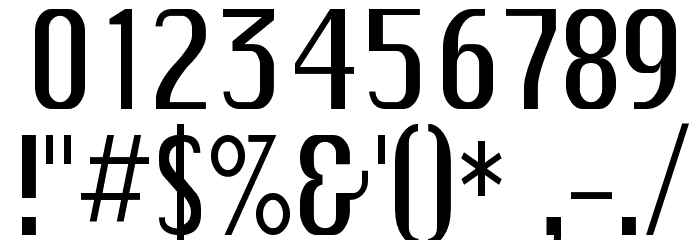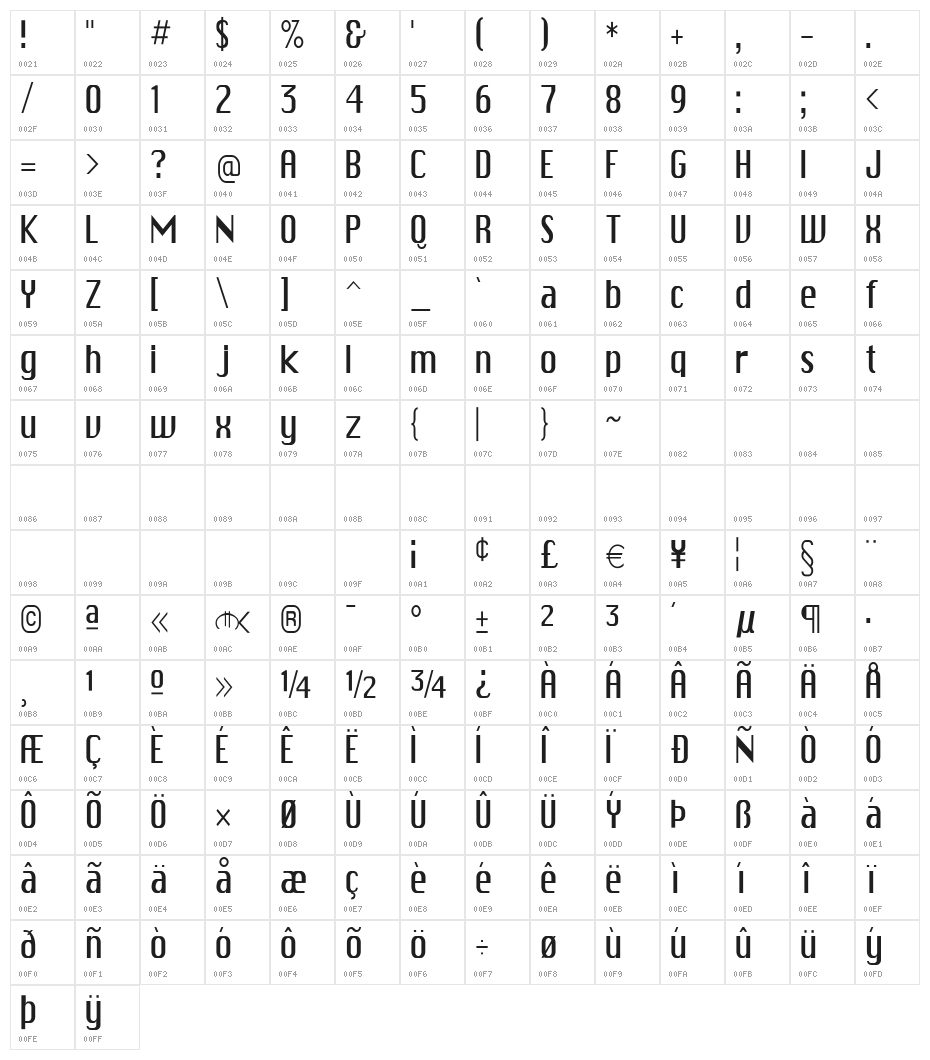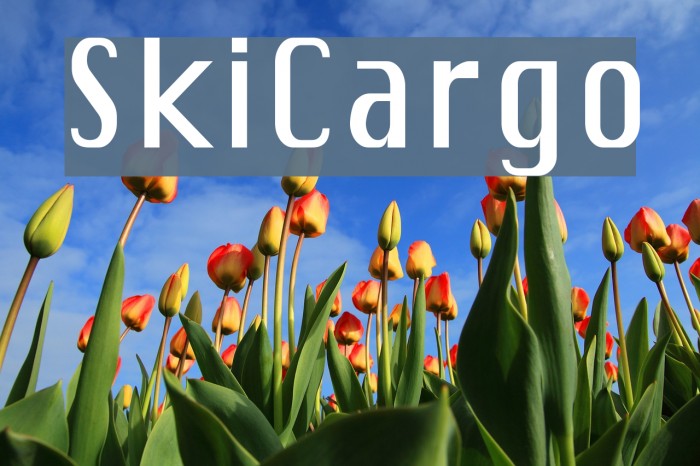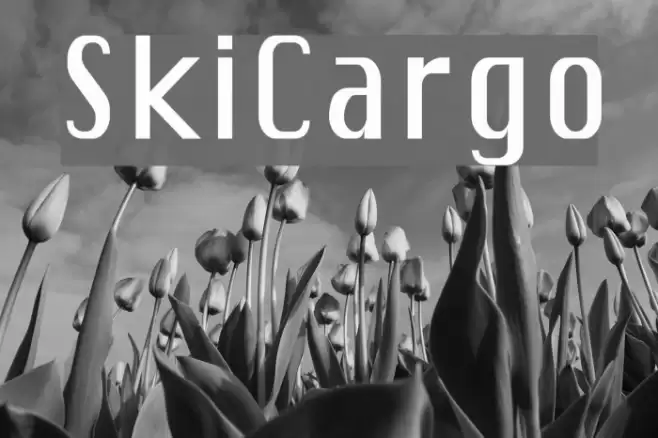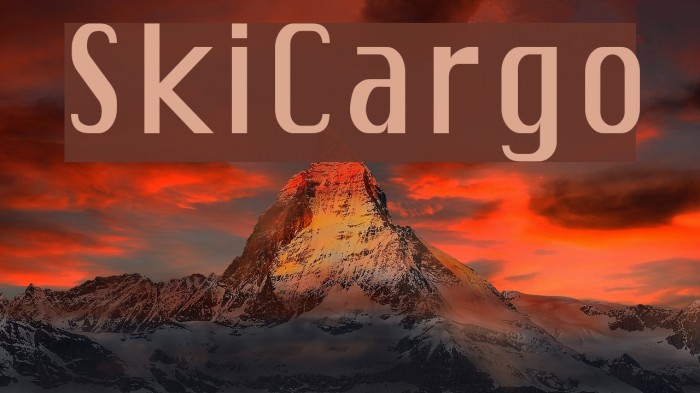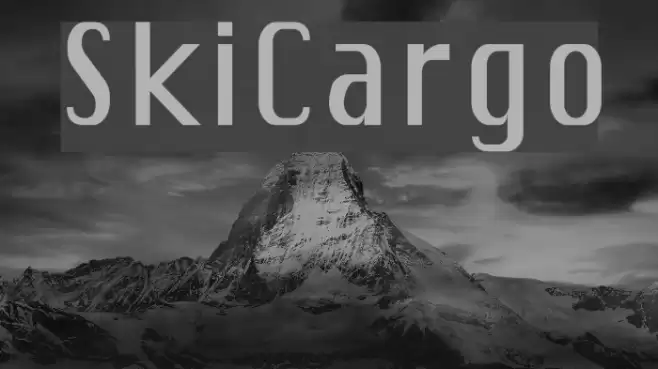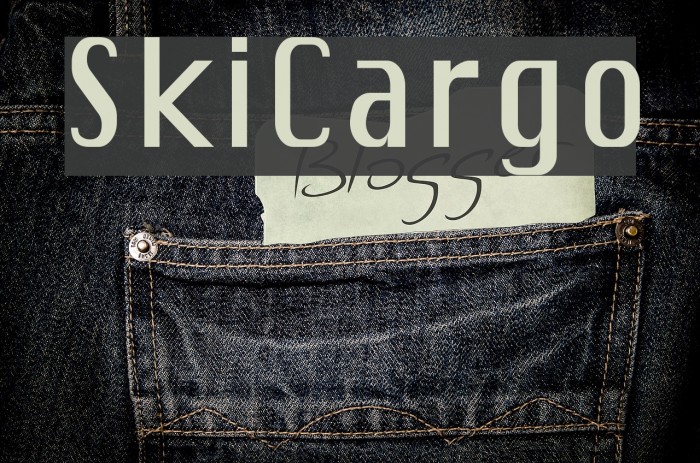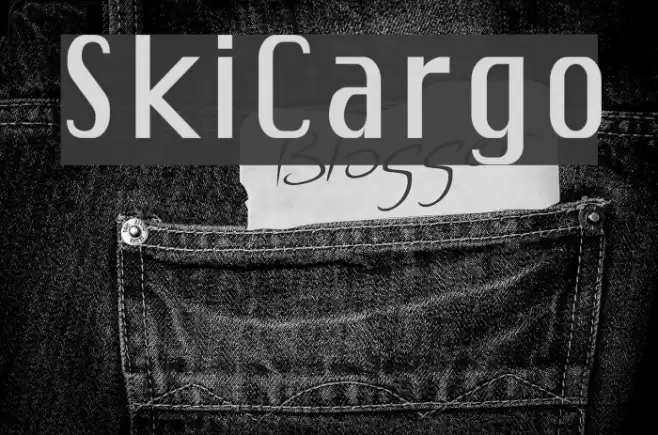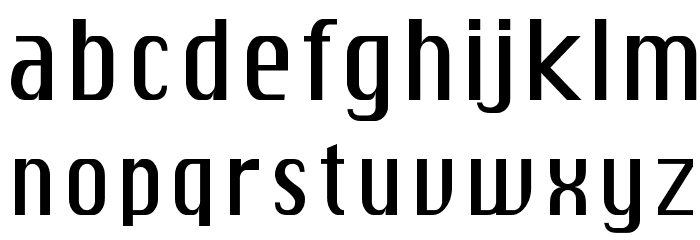
SkiCargo Font
SkiCargo Description
This font features a modern and sleek design with a geometric sans-serif style. The characters are tall and narrow, giving a condensed appearance that is both stylish and functional. The uppercase letters are uniform in height, while the lowercase letters maintain a consistent baseline, enhancing readability. The numerals are clear and distinct, making them suitable for various applications. Special characters are well-integrated, maintaining the overall aesthetic. This font's clean lines and minimalistic approach make it versatile for contemporary design projects.
| Proposed Projects | Ideal for branding, advertising, web design, and editorial layouts where a modern and clean look is desired. |